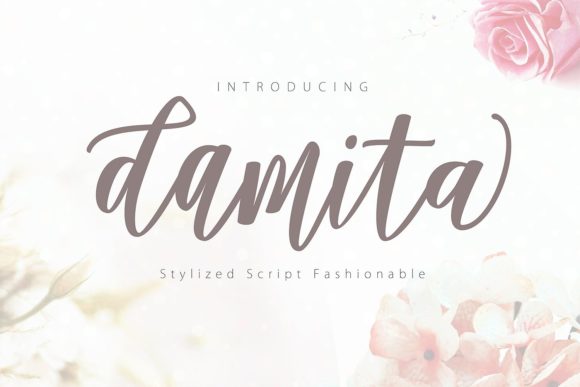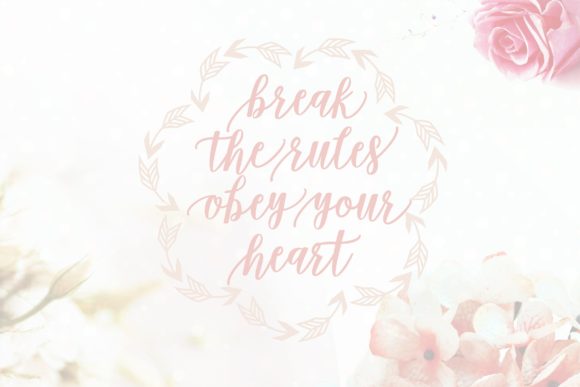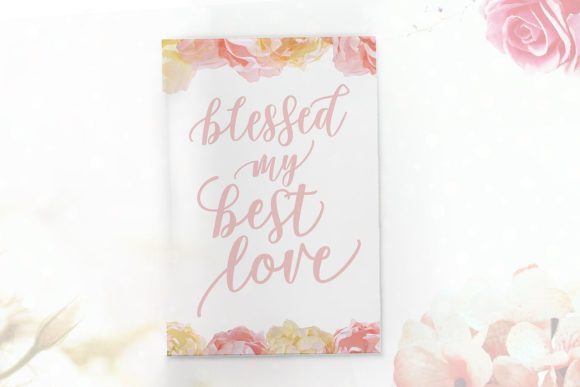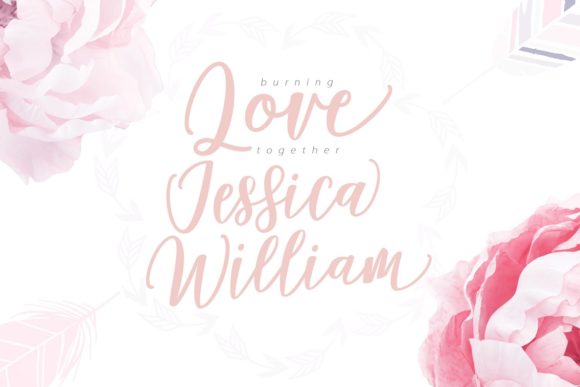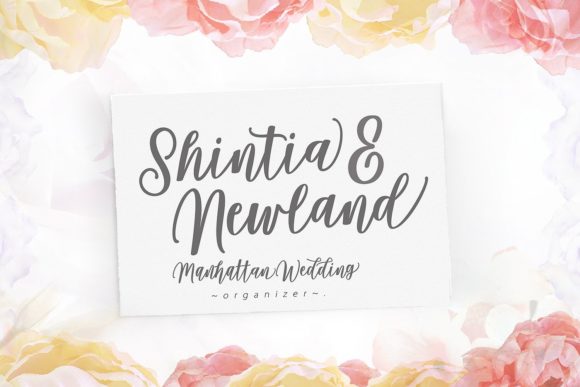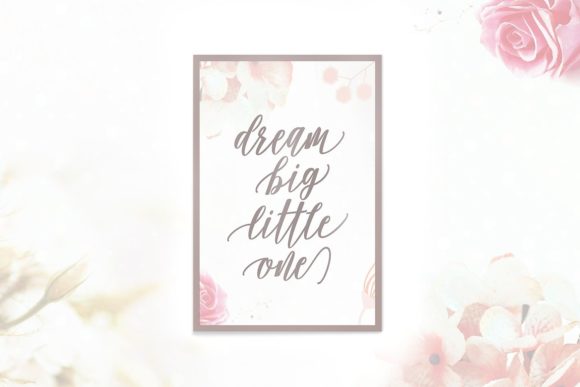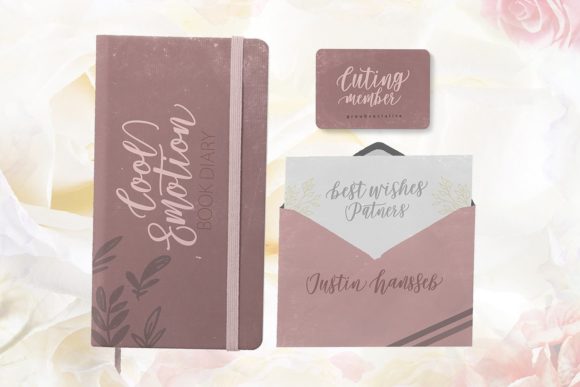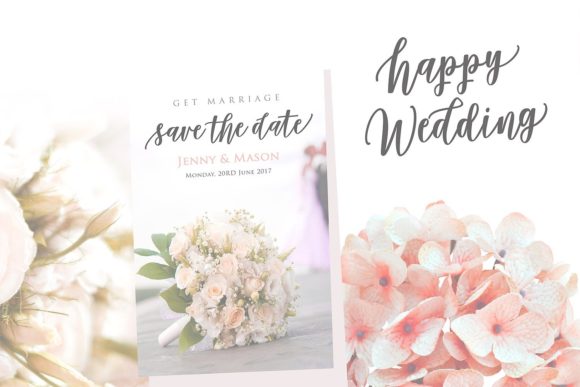
Damita Script Font
About Damita Script Font
Damita is a beautiful script font uniform and commensurate with contemporary style. Fall in love with its artistic feel, and use it to create outstanding designs! This font is PUA encoded, which means you can access all of the glyphs and swashes with ease!